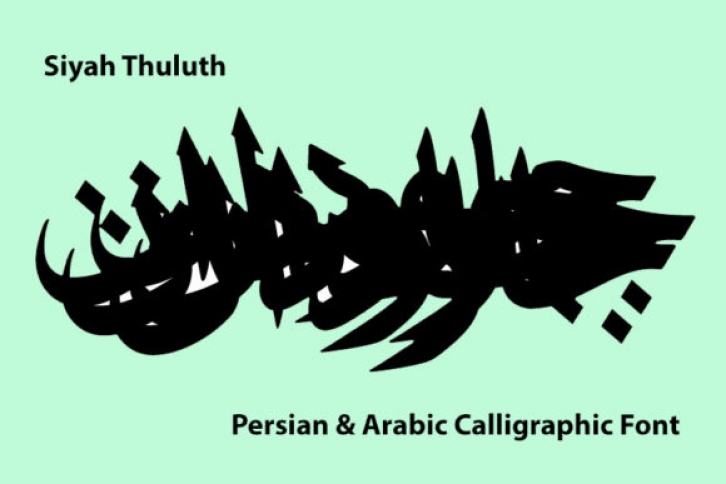
Siyah Thuluth is a wonderful Arabic calligraphic experience, translated into a font! With a beautiful and classic feel, it will turn any Persian–Arabic design idea into a piece of art.